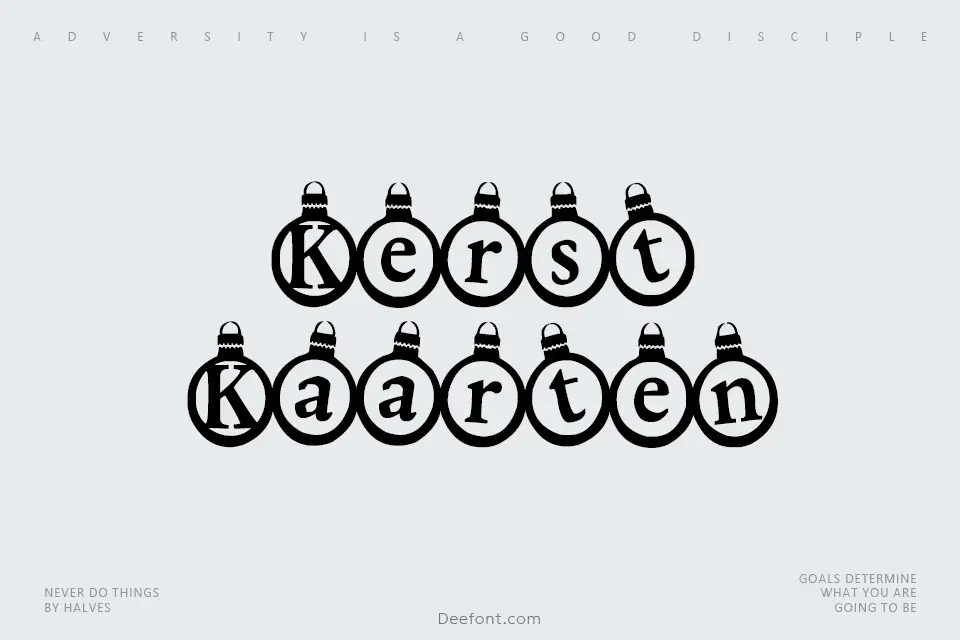
KerstKaarten Font
KerstKaarten is a festive Christmas display font created for decorating holiday cards and seasonal projects. With its bold, decorative characters featuring playful baubles and festive elements, this font brings cheerful charm to any design. Perfect for invitations, greeting cards, and holiday-themed typography, KerstKaarten combines a distinctive slab serif style with whimsical, dimensional character shapes that capture the spirit of the season.